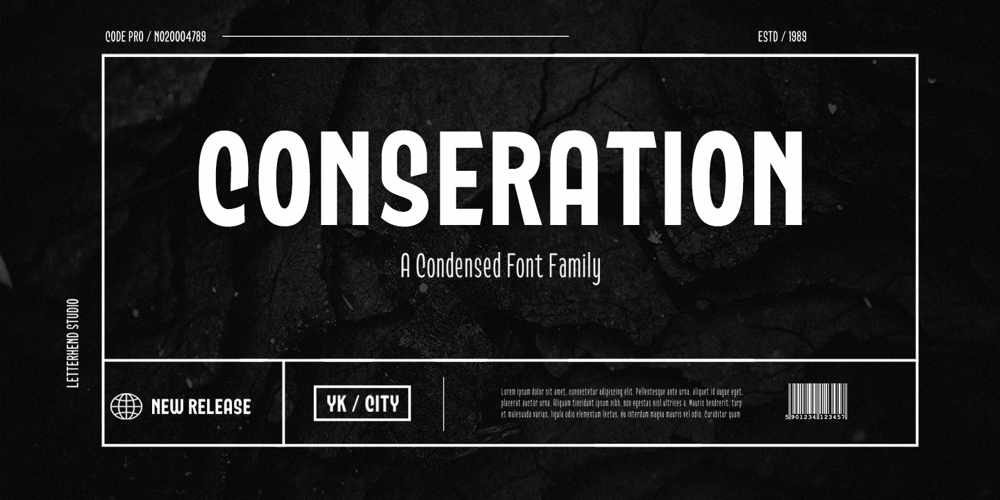
Conseration
Conseration font
Conseration Font Family was designed by Hendry Juanda and published by Letterhend. Conseration contains 5 styles and family package options. Conseration is a condensed font family. This family has 5 styles: Light, Regular, Medium, Semi Bold, and Bold. You can use it according to your needs. Luxury, classy yet still looks fun and playful in the same time. This font is perfectly made to be applied especially in logos and the other various formal forms such as invitations, labels, magazines, books, greeting / wedding cards, packaging, fashion, make up, stationery, novels or any type of advertising purpose.